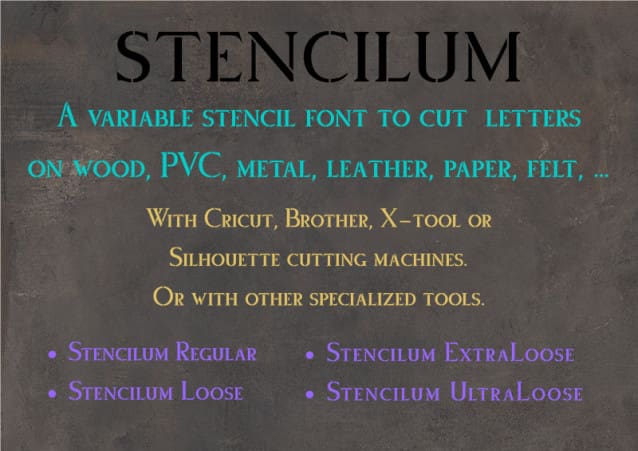
Stencil Serif Font Family
Stencil Serif Font is a classic stencil serif font. No matter the topic, this font will be an incredible asset to your fonts’ library, as it has the potential to elevate any creation.
A variable font to cut letters on wood, PVC, metal, leather, paper, felt, etc.
With the Cricur, Brother, X-Tool or Silhouette machines. Or with other specialized software .